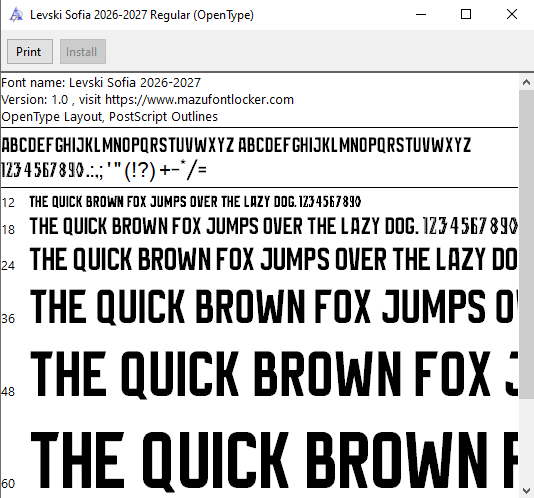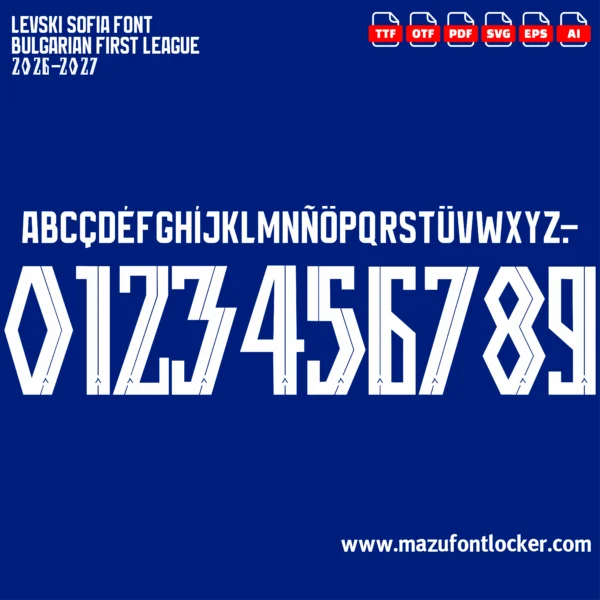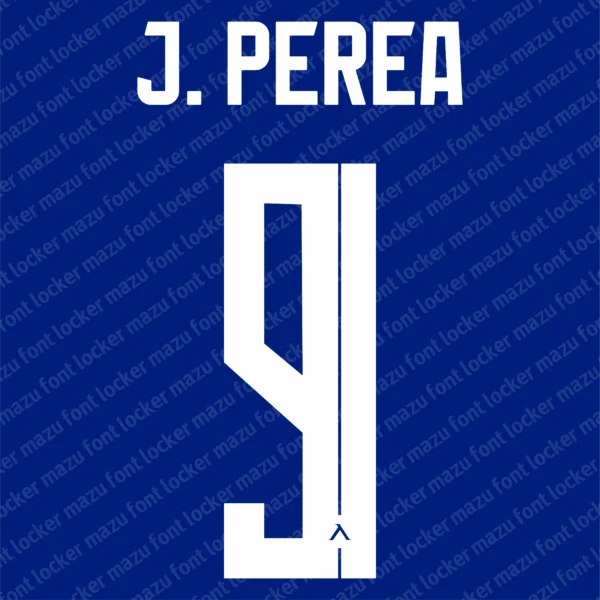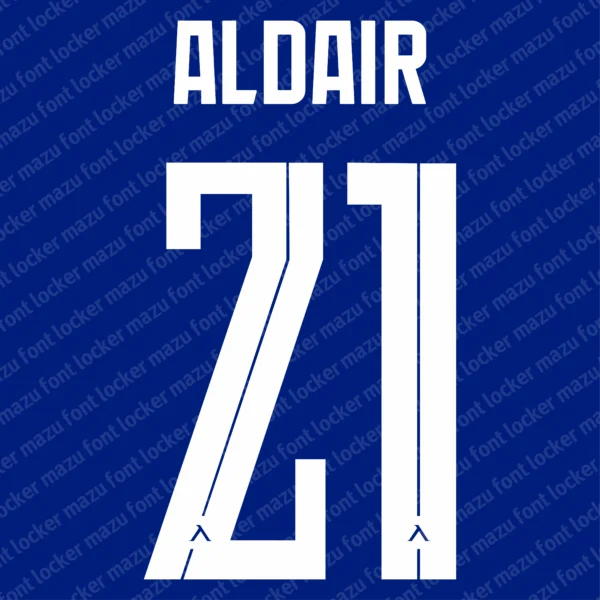
This premium font faithfully recreates the powerful, clean, and championship-inspired typography that represents The Blue Lions—delivering the pride of Bulgarian football, fearless determination, unwavering passion, attacking ambition, and the historic legacy that has established Levski Sofia as one of Bulgaria’s most iconic, respected, and successful football clubs.
The Levski Sofia 2026-2027 Font Vector is a premium typeface that faithfully recreates the official match lettering worn by Levski Sofia during the 2026-2027 season. Designed with exceptional attention to detail, this high-quality vector font captures the bold and modern typography featured on the club’s official kits throughout the campaign.
This font accurately recreates the official shirt lettering used by Levski Sofia during the 2026-2027 season. Every letter and number has been meticulously vectorized to provide professional-quality results for football-inspired designs, historical recreations, and premium jersey customization. Whether you’re working on print or digital projects, the Levski Sofia 2026-2027 Font Vector offers outstanding authenticity.
The lettering features a clean, athletic, and contemporary design that reflects Levski Sofia’s proud football tradition. Strong geometric shapes, balanced proportions, and excellent readability make this font suitable for jerseys, posters, banners, and sports branding.
The numerals faithfully reproduce the official squad numbers worn during the 2026-2027 campaign. Every number has been professionally vectorized for sharp scaling across all print and digital applications without losing quality.
• Complete uppercase A–Z and numbers 0–9 in authentic Levski Sofia 2026-2027 style
• Extended multilingual Latin character support
• Includes accurate crest glyph positioning for realistic football shirt customization
The Levski Sofia 2026-2027 Font Vector is an independently designed typeface package created to replicate the official shirt lettering style used by Levski Sofia during the 2026-2027 season. It is ideal for football-inspired artwork, historical recreations, jersey customization, fan projects, and sports design.